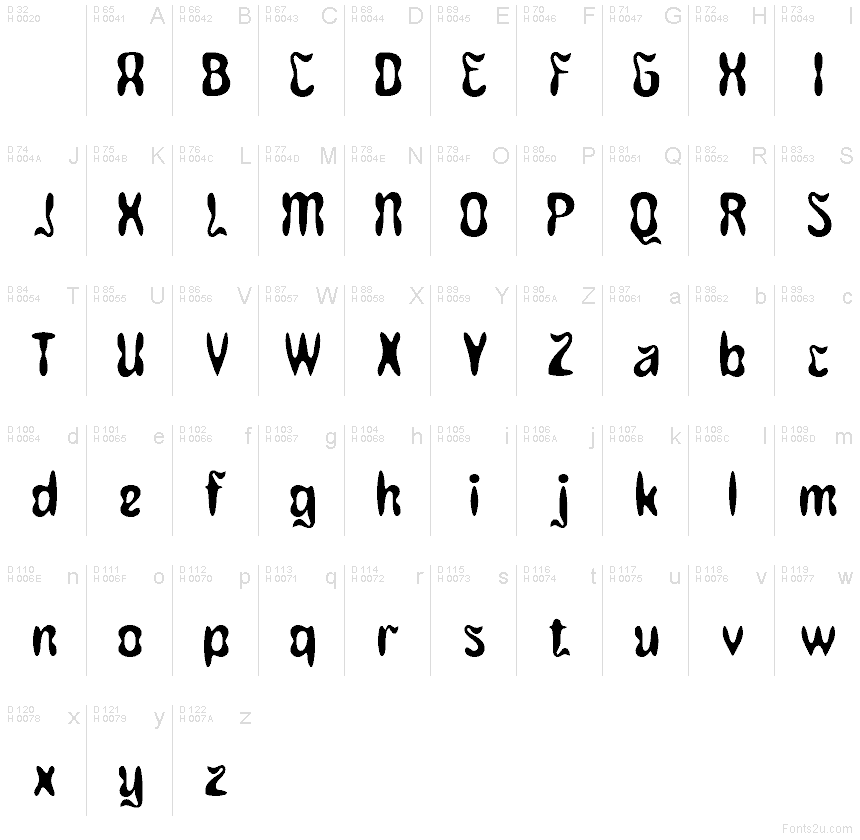
CSRodenDrawn-Regular Demo
CS Roden Drawn font by Craft Supply Co. is an artistic display font with an appealing freeform and organic feel. The elegant letterforms and fluid strokes give the typeface a unique look that is hard to ignore. Decorative in style, the letters look like they have been handwritten or drawn by hand which adds value to their natural appearance.
Use this free display font in headings, writing book covers or music albums covers, designing magazines, branding posters for different businesses, inspiring social media posts, invitation cards including weddings’ invitations, logos design projects and packaging patterns as well as signage systems for various relevant spaces.